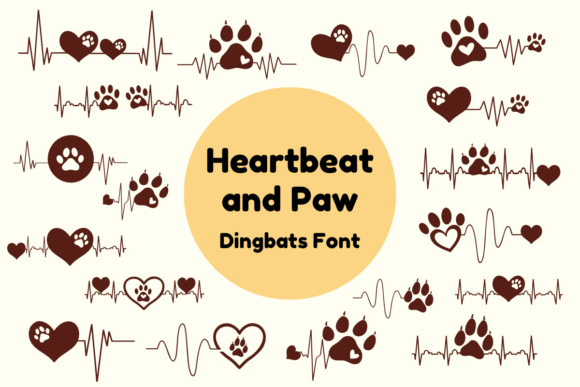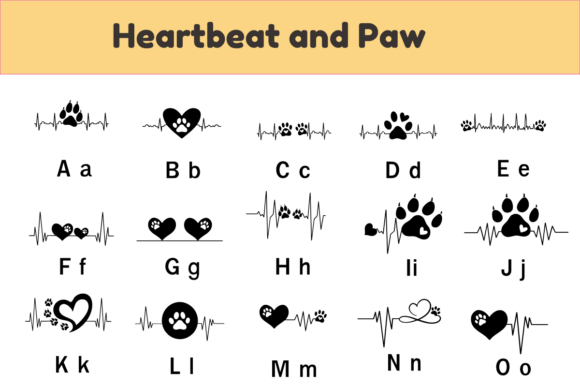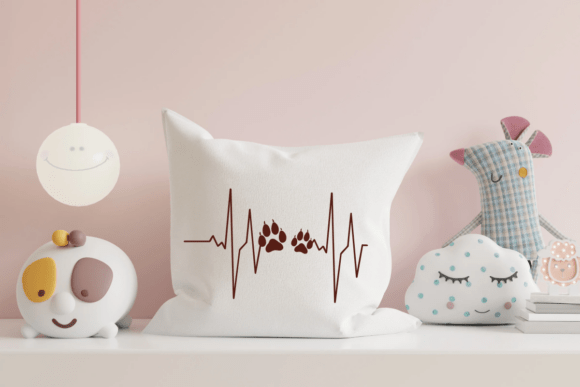
Heartbeat and Paw Font
Heartbeat and Paw is a charming dingbats font that merges the emotional pulse of heartbeat lines with the universal love for animals. Each glyph is a delightful icon combining paw prints, hearts, and EKG lines, creating an expressive toolkit for pet lovers, veterinarians, and rescue advocates. Its silhouette-style symbols are bold and easy to use, making them perfect for logos, stickers, apparel, signage, and crafts. The consistent line weight and playful curves maintain clarity while evoking warmth and compassion. Whether you’re designing for pet care branding or creating heartfelt projects, this font delivers personality without words.